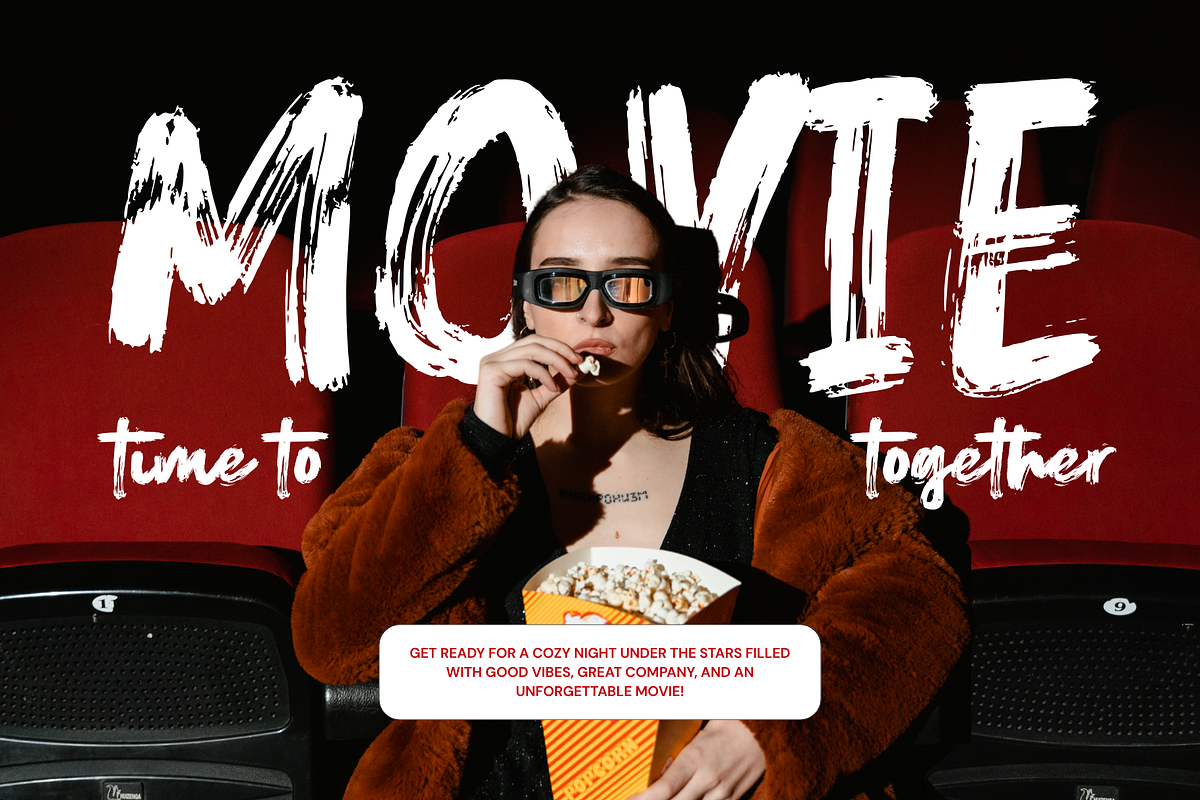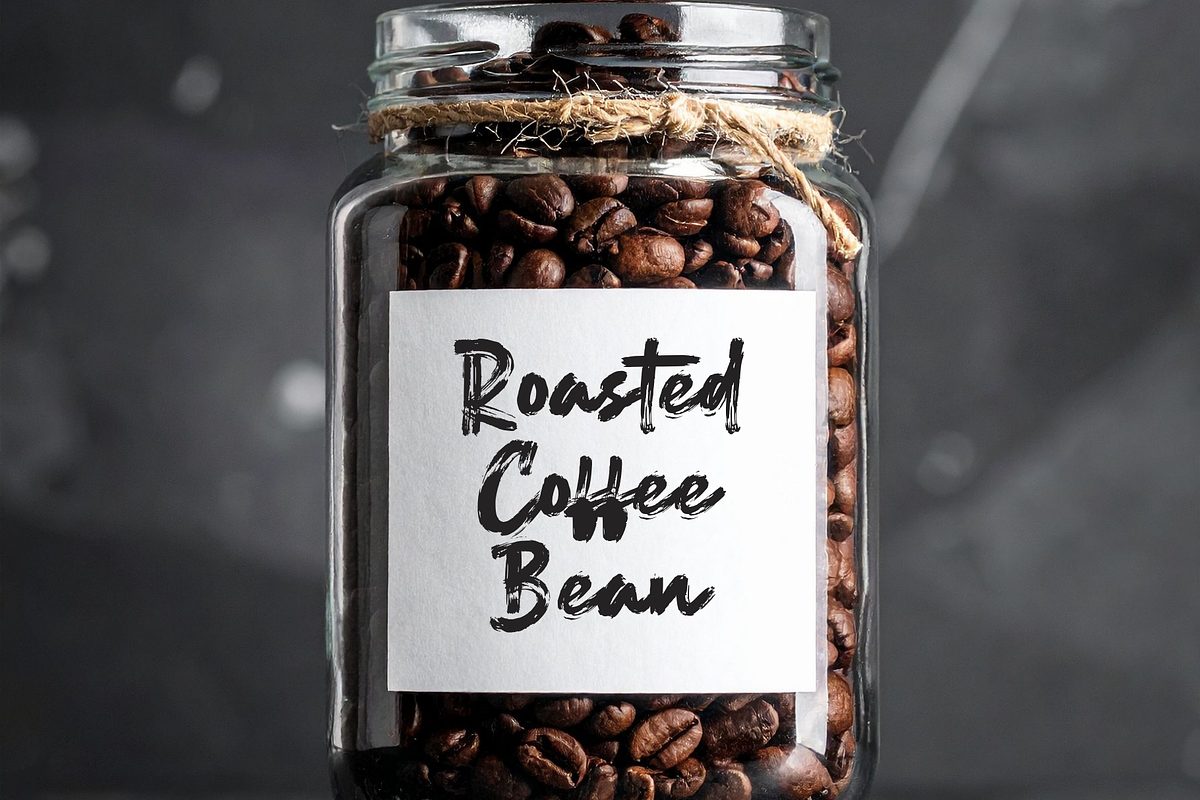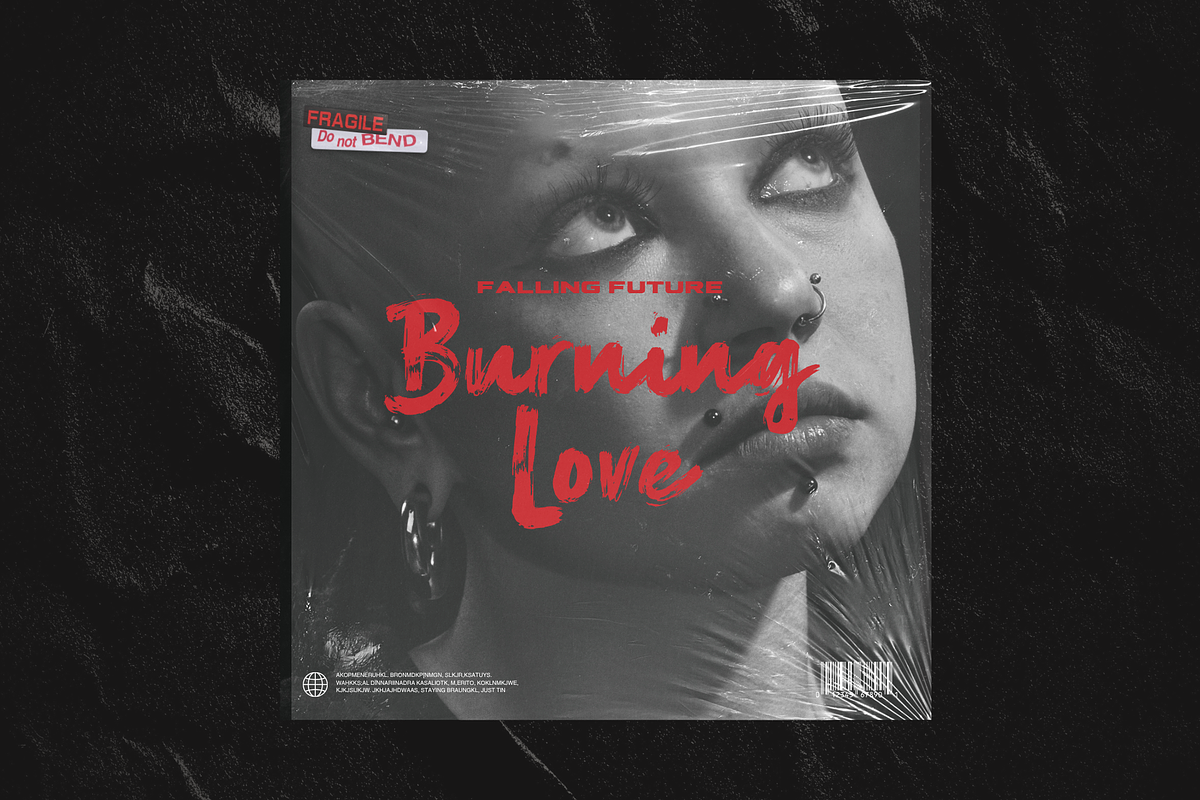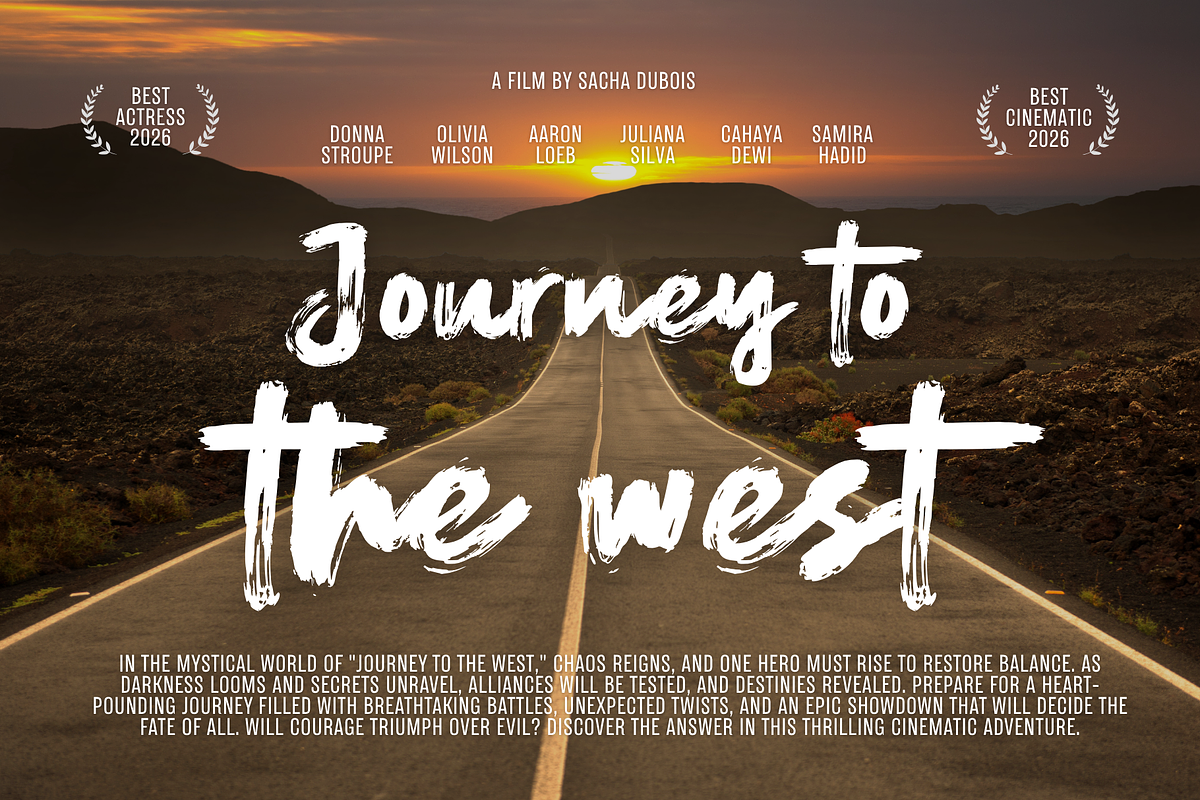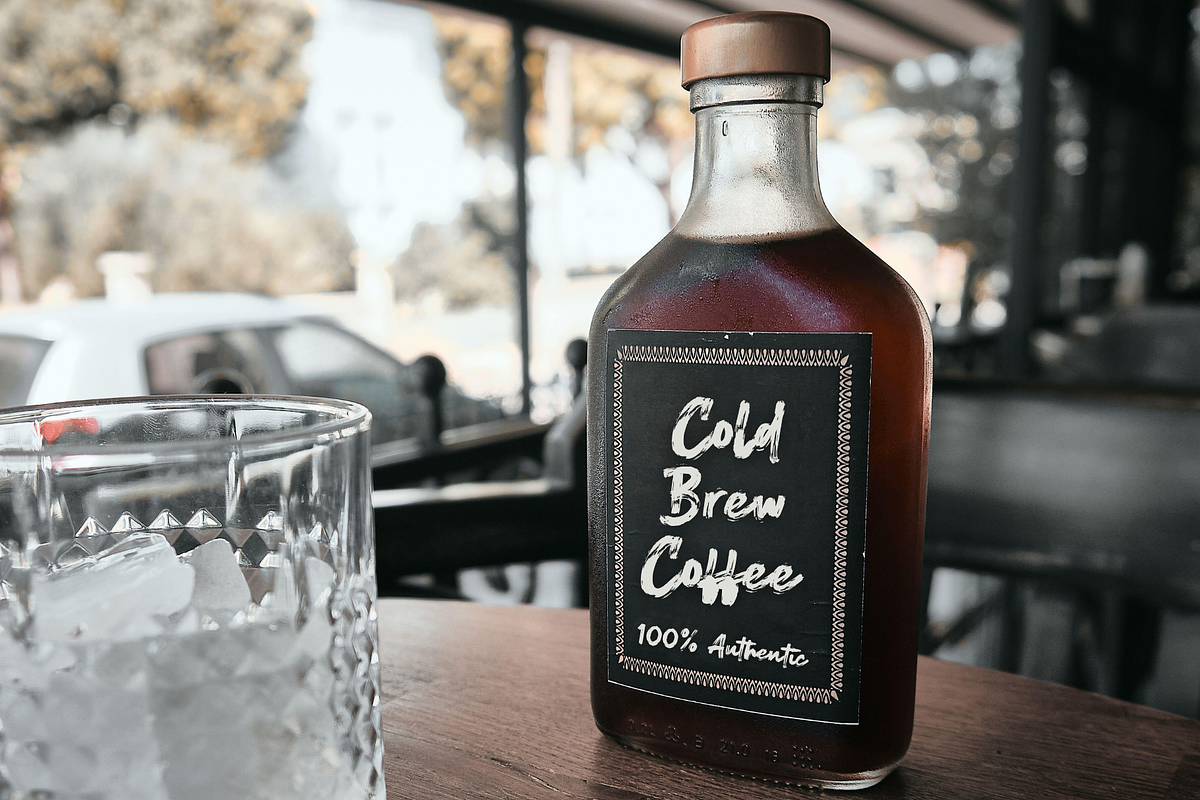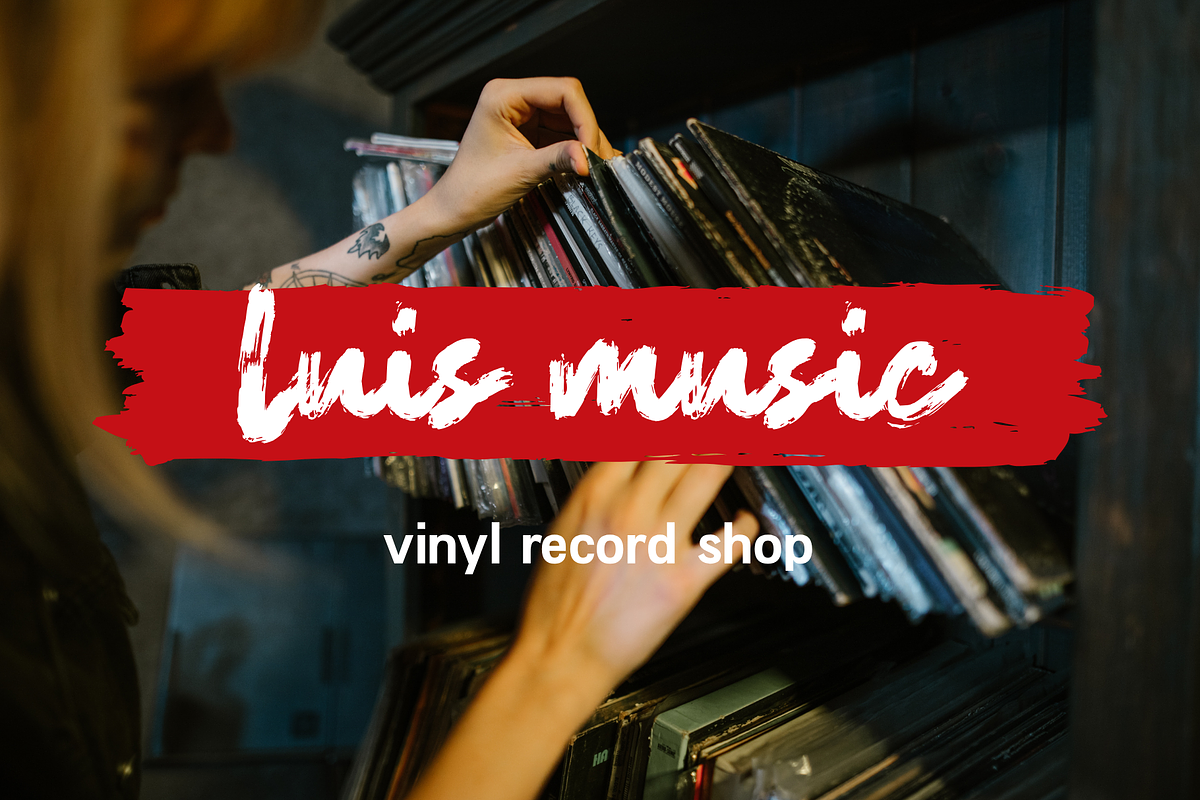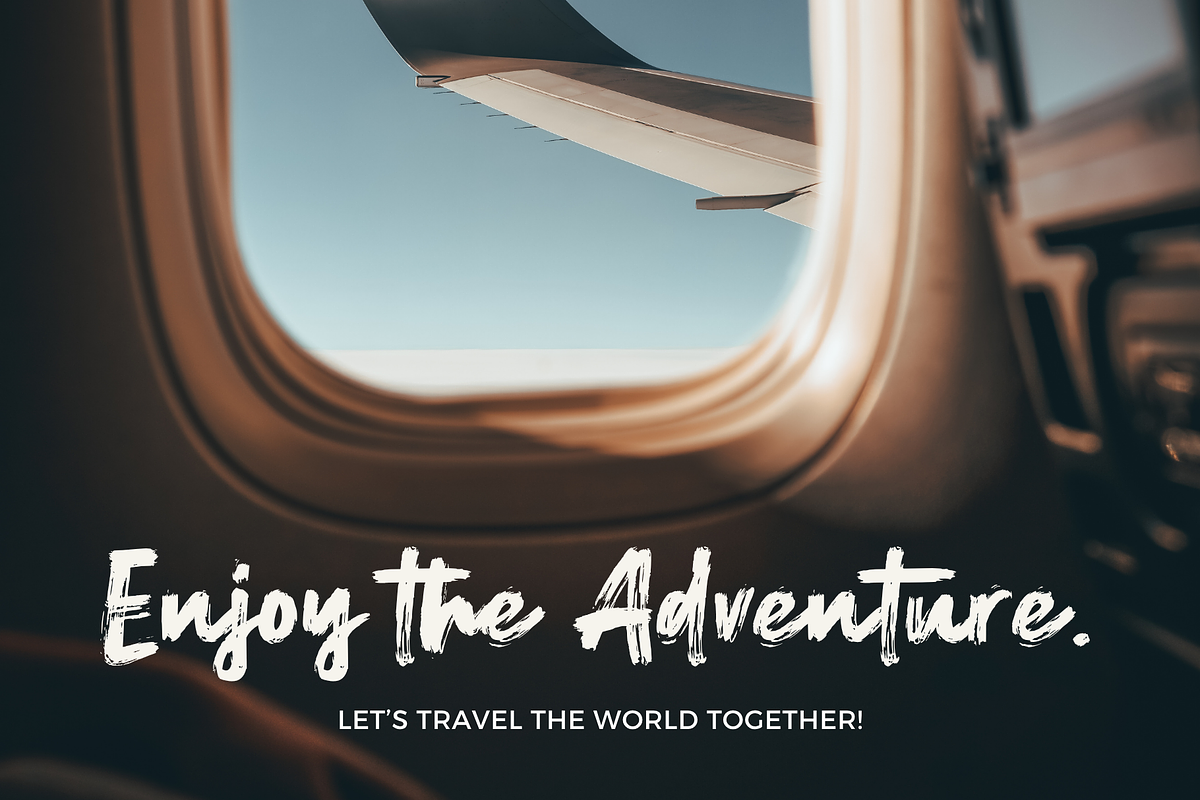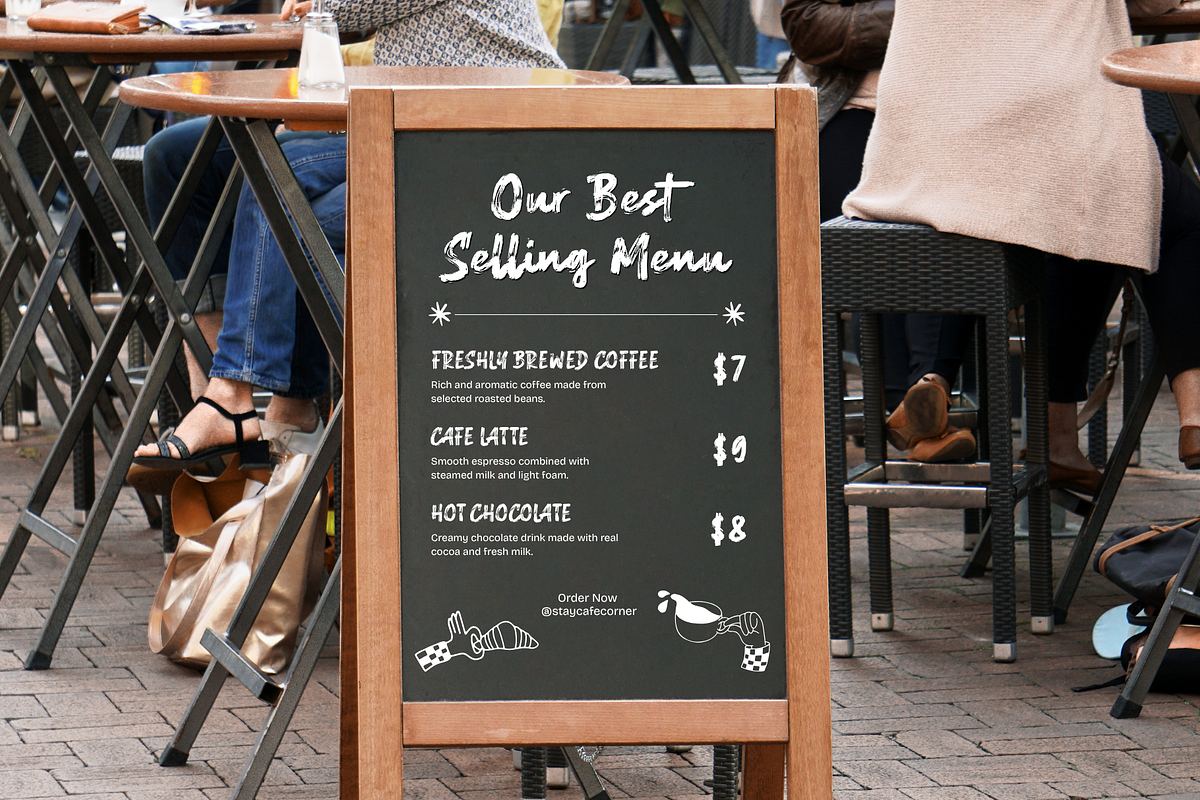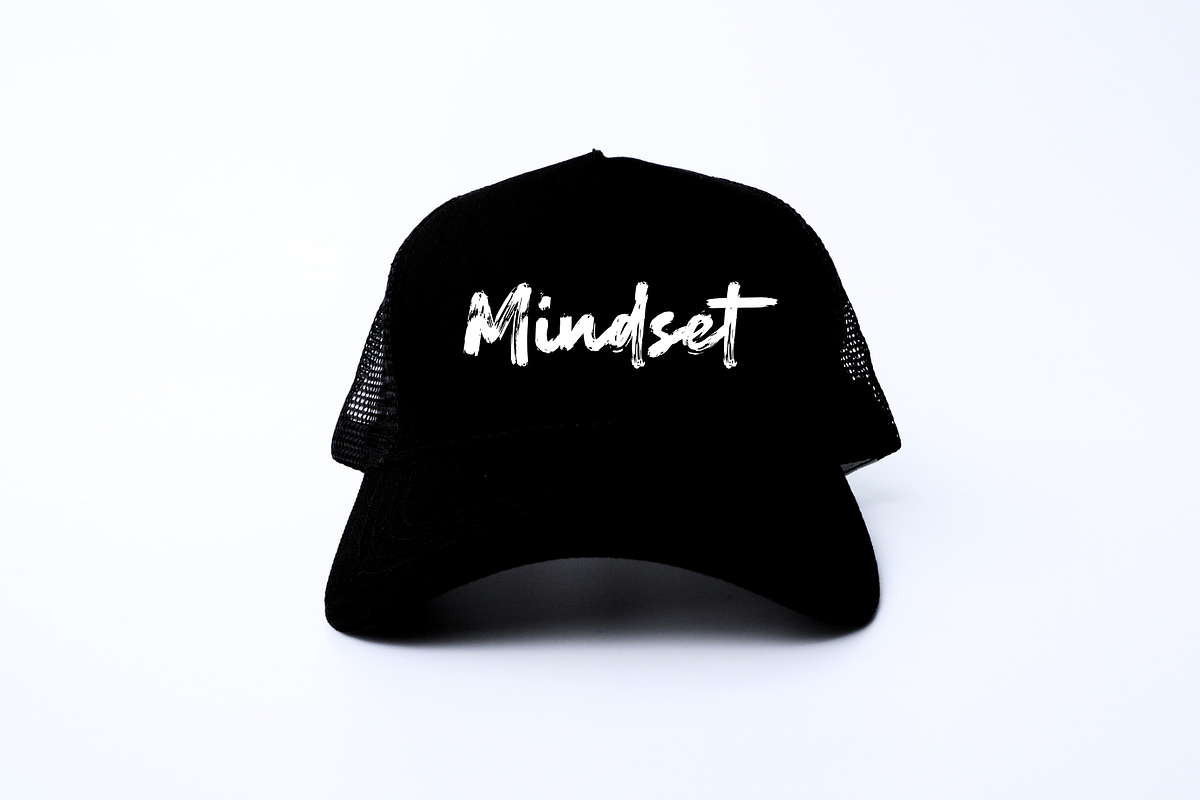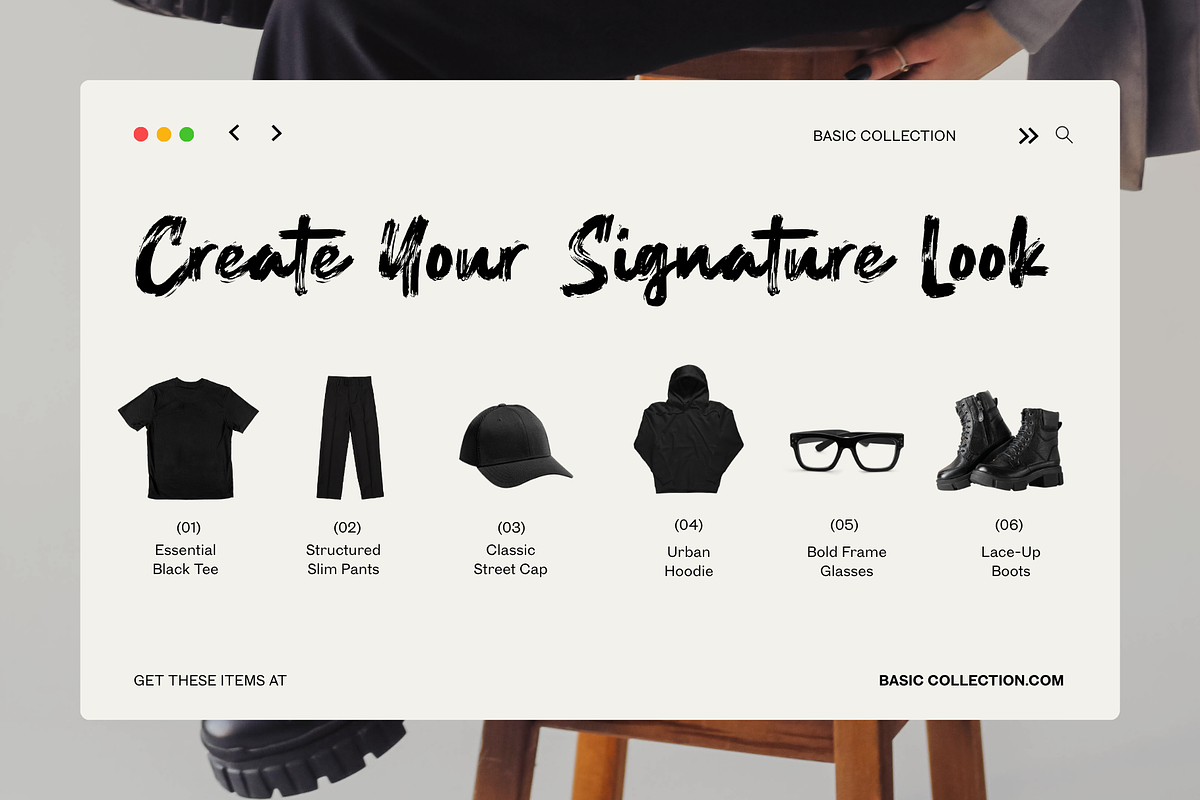
Wonder Glow – Brush Script Font
Wonder Glow is a bold brush script font that captures the beauty of authentic hand-drawn strokes. Crafted with real brush inspiration, this font delivers a natural, expressive, and organic feel in every letter.
Designed to reflect the true essence of handwritten brush lettering, Wonder Glow features dynamic strokes with a slightly rough texture, creating a perfect balance between raw artistry and visual harmony. Its bold weight ensures strong readability while maintaining a stylish and handcrafted look.
This font is perfect for a wide range of creative projects, such as:
Branding & logo design
Product packaging (cosmetics, food, fashion)
Posters & headlines
Social media content
Merchandise (t-shirts, tote bags, etc.)
Quotes & typography artwork
Book covers & music artwork
With its bold personality and natural flow, Wonder Glow brings a warm, artistic, and eye-catching touch to any design.
Punctuation & Symbols
Natural brush texture
Bold and expressive strokes